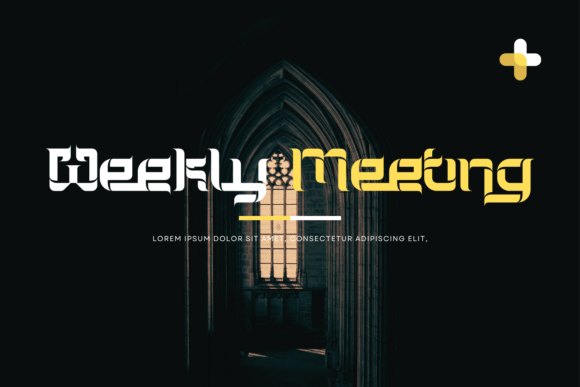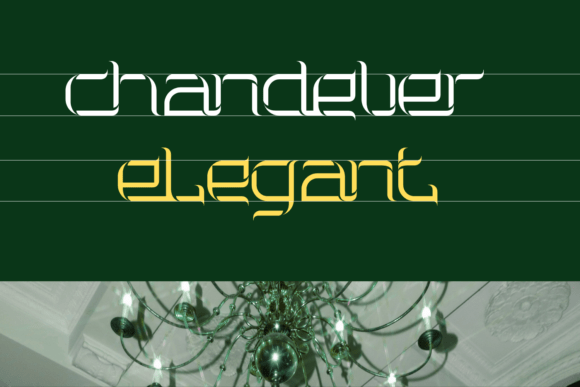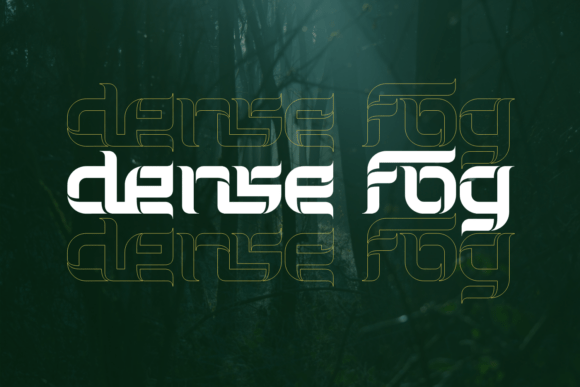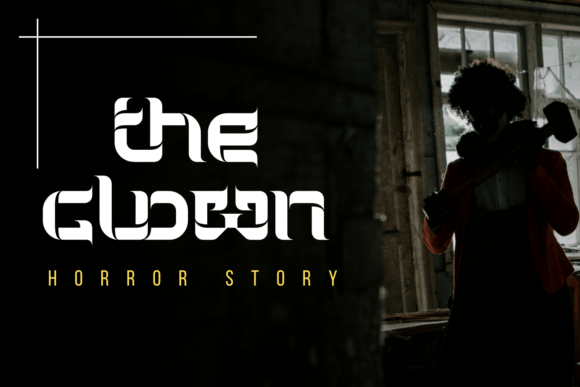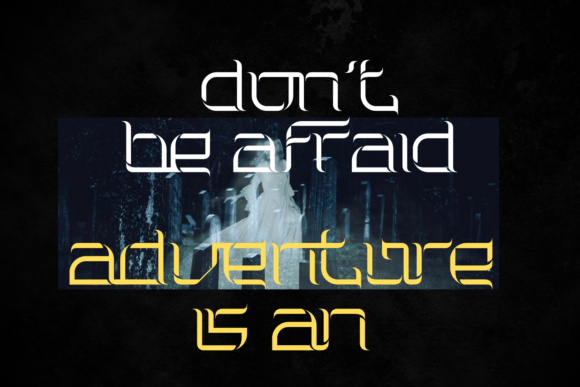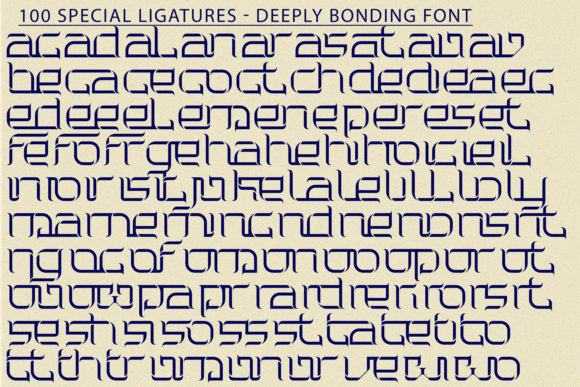
Introducing Deeply Bonding Font: A Revolutionary Sans Serif for Modern Design
In the ever-evolving world of typography, a new font has emerged that is set to redefine the boundaries of modern design. Meet Deeply Bonding Font, an experimental sans serif font that combines bold strokes with organic curves, offering a fresh and unique take on contemporary typography.
A Perfect Balance of Clarity and Artistic Expression
Deeply Bonding Font is thoughtfully designed to achieve a delicate balance between clarity and artistic expression. Each letter is carefully crafted to ensure that the font is not only visually stunning but also highly legible. This balance makes it an ideal choice for designers who want to create modern, high-end designs that demand attention.
Distinctive Structure and Elegance
The distinctive structure of Deeply Bonding Font is characterized by its bold strokes and organic curves, which give it a unique and modern look. The font’s subtle elegance makes it perfect for designs that require a refined appearance, such as luxury branding, high-end packaging, and editorial design.
Built with OpenType Features
Deeply Bonding Font is built with OpenType features, which provide a range of typographic options to enhance the font’s versatility. The font includes 100 ligatures, alternate characters, numbers, punctuation, and supports multiple languages. This extensive feature set allows designers to create complex and sophisticated typography that elevates their designs.
Key Features of Deeply Bonding Font
- Experimental sans serif font: A unique and modern take on traditional sans serif fonts.
- Bold strokes and organic curves: A distinctive structure that sets it apart from other fonts.
- 100 ligatures: Provides a range of typographic options to enhance the font’s versatility.
- Alternate characters, numbers, and punctuation: Offers flexibility and creativity in typography.
- Multi-language support: Allows designers to create typography for a global audience.
- OpenType features: Enables designers to create complex and sophisticated typography.
Applications of Deeply Bonding Font
Deeply Bonding Font is a versatile font that can be used in a variety of design applications, including:
- Luxury branding: Create high-end logos and brand identities that demand attention.
- Editorial design: Use the font to create elegant and sophisticated editorial designs, such as magazines and newspapers.
- Packaging design: Add a touch of elegance and sophistication to packaging designs.
- Web design: Use the font to create modern and visually stunning websites.
Why Choose Deeply Bonding Font?
Deeply Bonding Font offers a unique combination of modernity, elegance, and versatility, making it an ideal choice for designers who want to create high-end designs. The font’s distinctive structure, OpenType features, and extensive character set make it a valuable addition to any designer’s font library.
In conclusion, Deeply Bonding Font is a revolutionary sans serif font that offers a fresh take on modern typography. Its distinctive structure, elegant design, and extensive feature set make it perfect for designers who want to create modern, high-end designs. Whether you’re a designer, crafter, or typography enthusiast, Deeply Bonding Font is a must-have font that will elevate your designs to the next level.